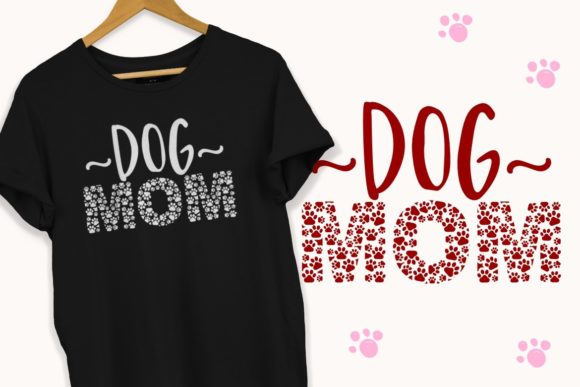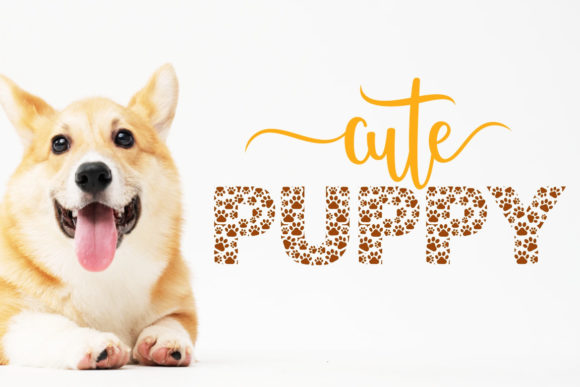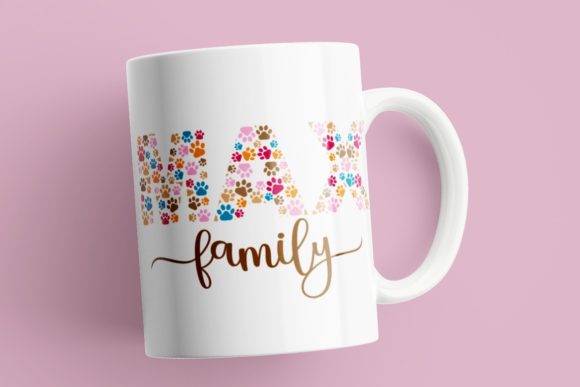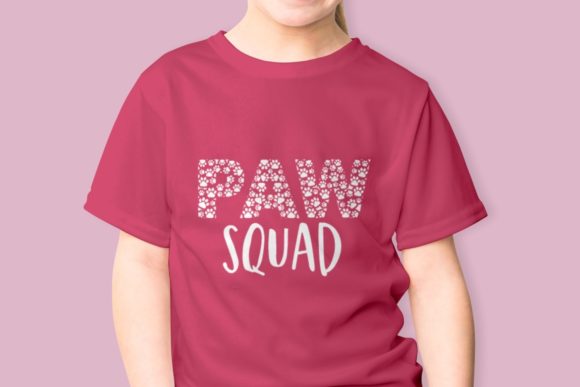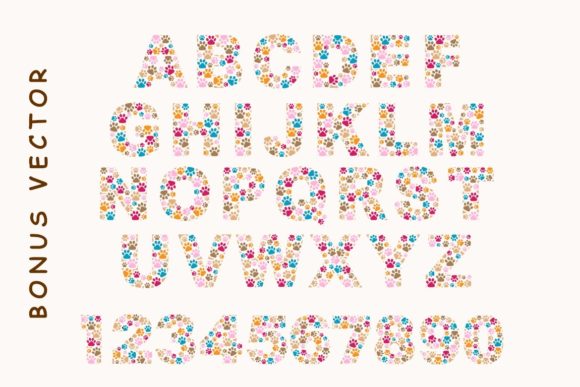
Introducing Dog Style Font: The Perfect Choice for Playful and Creative Projects
Are you a designer, crafter, or DIY enthusiast looking for a font that embodies playfulness and authenticity? Look no further than Dog Style Font, a cute and decorative font that’s perfect for children’s activities, school projects, and any other creative endeavor that requires a fun and youthful touch.
What is Dog Style Font?
Dog Style Font is a unique and charming font that’s designed to capture the spirit of playfulness and innocence. With its irregular shapes and imperfect lines, this font exudes a sense of handmade charm that’s sure to delight both kids and adults alike. Whether you’re creating a fun craft project, designing a kids’ menu, or working on a school assignment, Dog Style Font is the perfect choice.
Key Features of Dog Style Font
- Playful and Whimsical: Dog Style Font is designed to be fun and playful, making it perfect for projects that require a lighthearted touch.
- Cute and Adorable: The font’s irregular shapes and imperfect lines give it a cute and endearing quality that’s sure to charm.
- Handmade Charm: Dog Style Font has a distinctly handmade feel that’s perfect for crafty projects and DIY designs.
- Highly Versatile: This font can be used for a wide range of projects, from children’s activities and school projects to craft tutorials and DIY designs.
Why Choose Dog Style Font?
So why choose Dog Style Font for your next project? Here are just a few reasons:
- Unique and Eye-Catching: Dog Style Font is a one-of-a-kind font that’s sure to grab attention and stand out from the crowd.
- Easy to Read: Despite its playful and irregular design, Dog Style Font is surprisingly easy to read, making it perfect for projects that require both style and substance.
- Perfect for Kids’ Projects: This font is specifically designed with kids in mind, making it perfect for children’s activities, school projects, and other kid-friendly designs.
How to Use Dog Style Font
Using Dog Style Font is easy! Here are a few tips to get you started:
- Pair it with Other Fonts: Dog Style Font pairs perfectly with other fonts, such as sans-serif fonts or script fonts. Experiment with different combinations to find the perfect look for your project.
- Use it for Headings and Titles: Dog Style Font is perfect for headings and titles, where its playful and whimsical design can really shine.
- Add it to Your Craft Projects: Whether you’re working on a craft tutorial, a DIY project, or a handmade card, Dog Style Font is a great addition to any crafty design.
In conclusion, Dog Style Font is an amazing and cute decorative font that’s perfect for any project that requires a playful and authentic touch. With its unique and eye-catching design, easy readability, and versatility, this font is a must-have for designers, crafters, and DIY enthusiasts of all levels. So why wait? Download Dog Style Font today and start adding a touch of playfulness and whimsy to your designs!